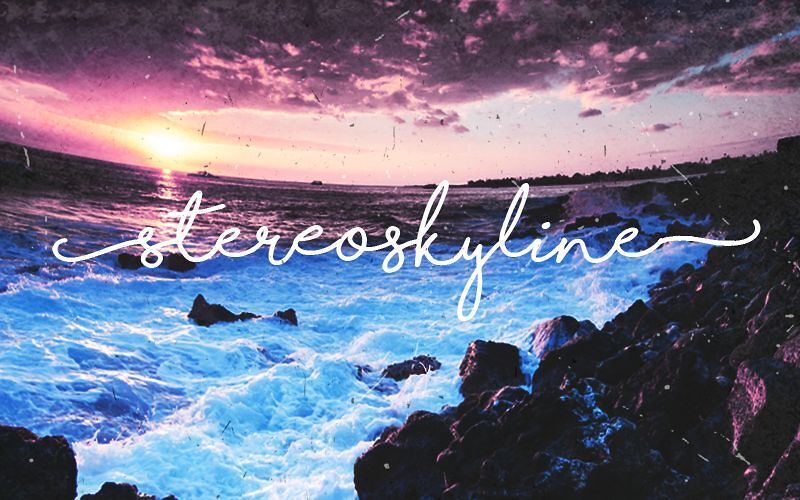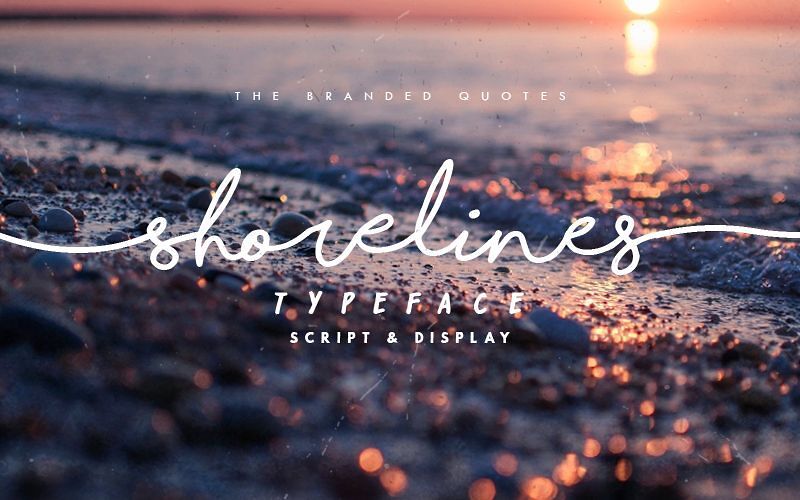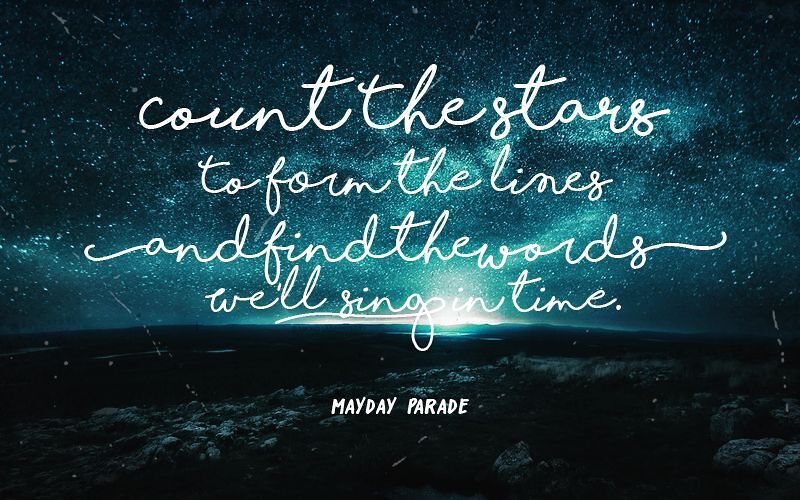
Not your average Cursive font, Shorelines can behave like a girl’s handwriting then shreds like a boss over the sea waves! Whether you’re a photographer who wants that signature text on your images, or a blogger, maybe a Pro-Surfer? Shorelines Script will cater all your cursive dreams.
The imbalanced heights and spacing will give your work a natural and handwritten look. Shorelines Script – In Bold and Light versions were alternates are in the Uppercase forms. Shorelines Display – A bit slanted Capitals to grab a little attention when paired with the cursive.
Note: Try combining the Uppercase and Lowercase characters to form a unique look of a word. Also, the swashes and extras are found in some of the Punctuation Marks of the brush and script fonts.